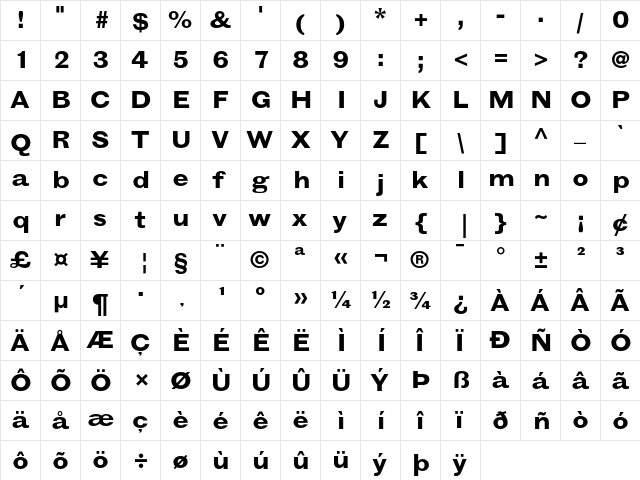
Grotesque MT Bold Extended Font Preview
Grotesque MT Bold Extended
Grotesque MT Bold Extended Font Details
| Style | Bold Extended |
Design Context for Grotesque MT Typeface
Grotesque MT takes a measured approach to typography — its balanced proportions and neutral character make it a reliable workhorse for both digital and print work. Its bold stroke weight gives it real presence on the page.